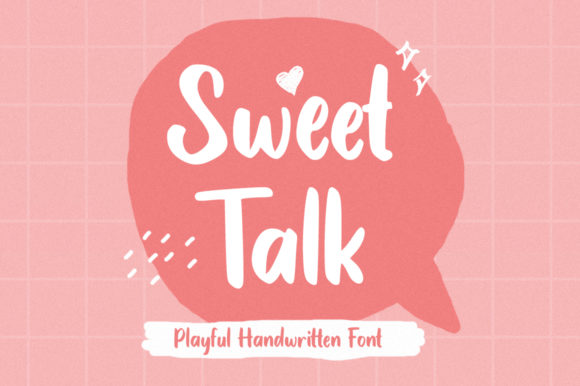
Welcome to the world of Sweet Talk, an enchanting script font family that captures the essence of handwritten beauty. Step into a realm where creativity dances freely, and your projects blossom with a touch of elegance and charm.
Sweet Talk is more than just letters; it's a symphony of emotions, an ode to love and happiness. With its graceful curves and flowing lines, this font family invites you to embark on a journey of self-expression and heartfelt communication.
Imagine the joy of crafting wedding invitations that whisper the love story of two souls embarking on a new adventure. The delicate and airy lines of Sweet Talk will carry your words with a grace that matches the joyous occasion.
Envision creating stationary art pieces that exude sophistication and charm. Let the letters dance across the page, creating patterns that captivate the eyes and warm the heart. Sweet Talk's organic and authentic feel will add a personal touch to your artwork, making it a cherished keepsake for years to come.
Tap into the power of social media and let Sweet Talk amplify your message with an unforgettable visual impact. Embrace the era of eye-catching posts that speak louder than words. Your audience will be mesmerized by the playful and inviting nature of this font, compelling them to engage with your content.
And oh, those cute greeting cards! Picture your loved ones receiving a heartfelt message penned in Sweet Talk's elegant script. The words will carry the weight of your emotions, conveying warmth, appreciation, and heartfelt wishes. Each card will be a testament to the love and care you hold for those who matter most.
Sweet Talk isn't just a font; it's a gateway to a world of emotions and creative possibilities. Whether you're designing wedding invitations, creating stationary art, crafting social media posts, or spreading joy with greeting cards, Sweet Talk will be your trusted companion, guiding you towards extraordinary outcomes.
Don't let ordinary fonts limit your creativity. Embrace the magic of Sweet Talk and let your projects radiate with beauty, grace, and a touch of whimsy. Immerse yourself in the world of Sweet Talk and create something truly remarkable.